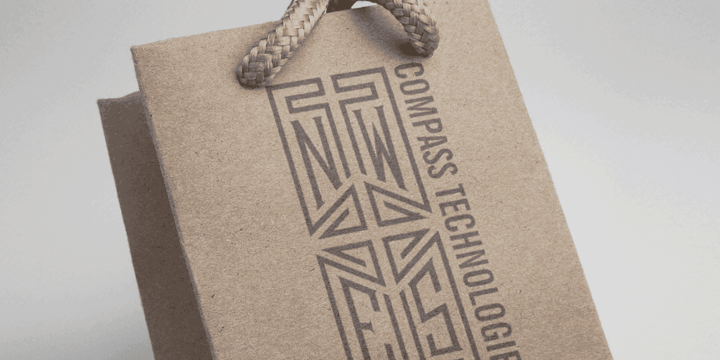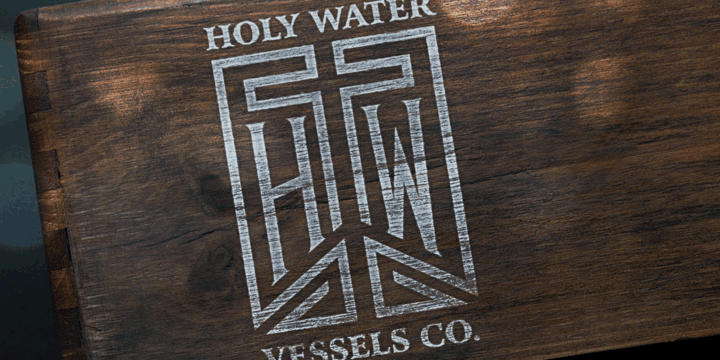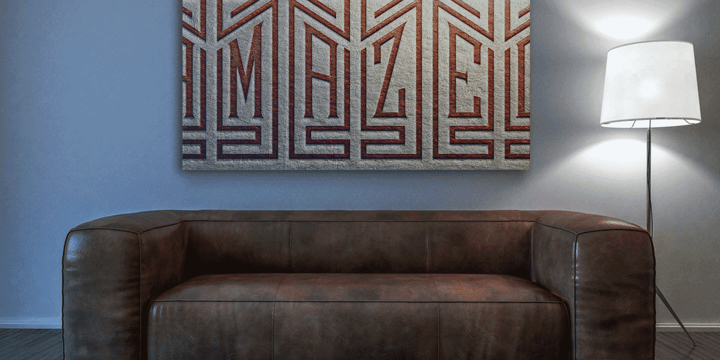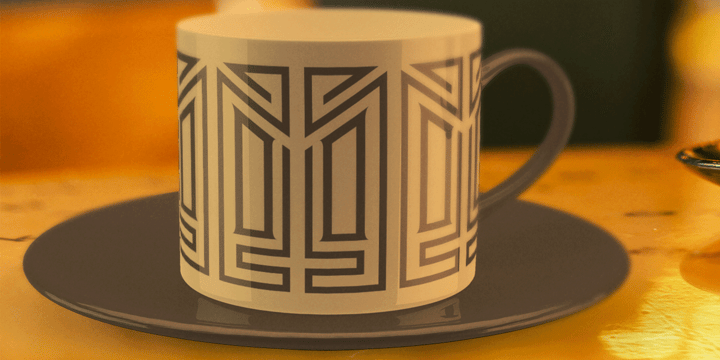
Piege Monogram
Font Family by Monogram Fonts Co
The source of inspiration for Piege Monogram is an ornament framed letterstyle from a vintage embroidery publication. Because of its unusual labyrinth style framework, it is aptly named "Pi